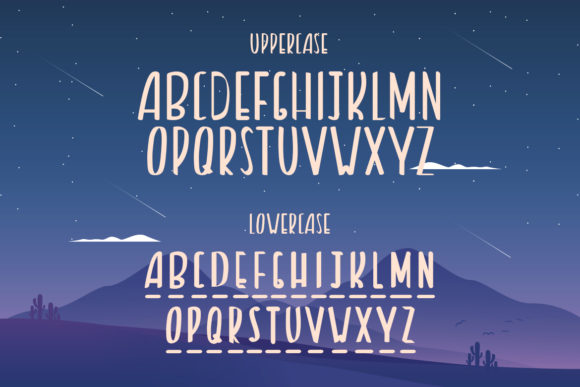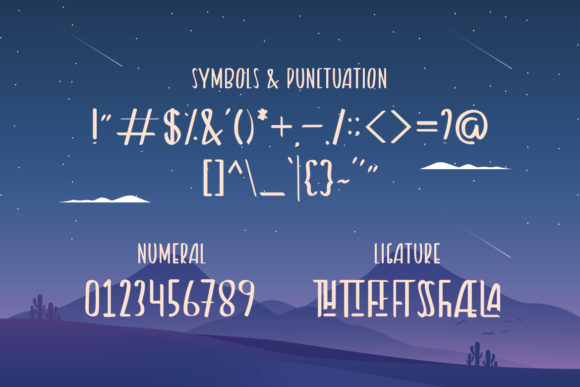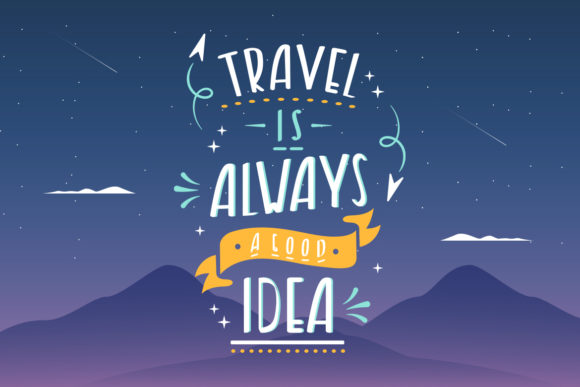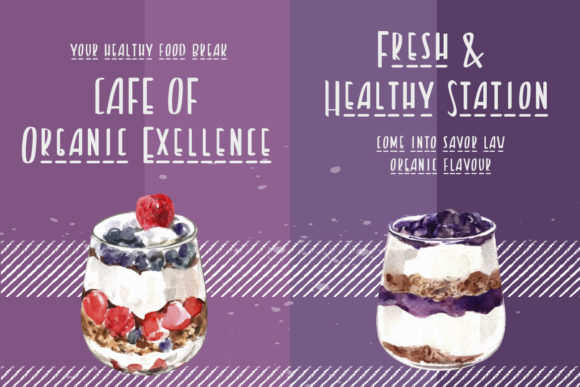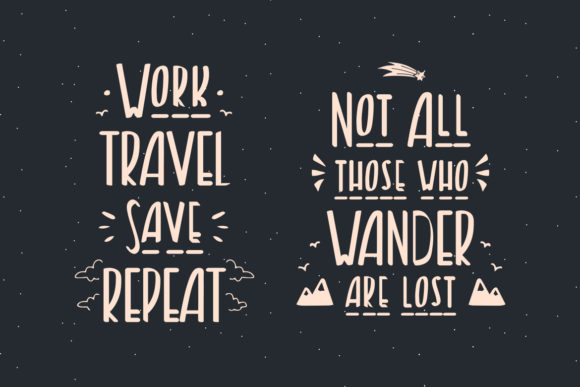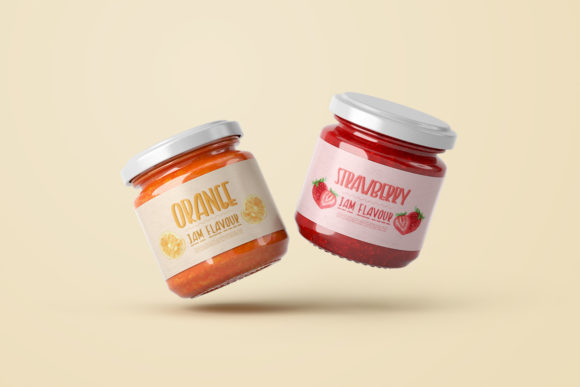
The Perfect Font for Your Next Design Project
| 👤 Author | TypeFactory |
That’s where the Bluffton Font comes in. A simple, yet stylish display font, Bluffton is the perfect addition to any design project. Its tall and trendy design makes it versatile and easy to use in a variety of settings. Whether you’re creating a logo, brochure, or social media graphics, Bluffton Font is a valuable asset for designers looking to add a touch of sophistication to their work.
Bluffton Font Key Features
- Unique Characteristics: Bluffton Font features a unique blend of classic and modern elements, with a focus on clean lines, elegant curves, and a touch of sophistication.
- Character Set: The font includes a comprehensive character set, including uppercase and lowercase letters, numerals, punctuation marks, and special characters, making it suitable for a wide range of applications.
- Font Weight and Style: Bluffton Font is available in various font weights, including light, regular, bold, and italic, allowing users to choose the perfect style to suit their needs.
- Legibility and Readability: The font is designed to be highly legible and readable, even at small font sizes, making it an ideal choice for body text, headings, and titles.
Bluffton Font Review
Bluffton Font is an elegant, modern sans-serif font that exudes sophistication and refinement. Here are some of its strengths: ✨
- Legibility**: The font is highly legible, making it suitable for both body text and headlines.
- Flexibility**: Bluffton Font comes in a range of weights, from light to bold, offering flexibility in design.
- Style**: The font’s clean lines and geometric shapes give it a unique, modern feel.
- Limited Expressiveness**: Bluffton Font may not be the best choice for projects that require a lot of expressiveness or emotional depth.
- May Not Work for Small Text**: Due to its simplicity, the font may not be ideal for small text sizes.
In general, I think Bluffton Font is a solid choice for designers who need a clean, modern sans-serif font. While it may not be the most expressive font out there, it’s a great option for projects that require sophistication and refinement.
Practical Application Guide for Bluffton Font
Bluffton Font works well for headings, titles, and short paragraphs in Canva designs.
Bluffton Font is particularly suitable for creating custom graphics and illustrations.
Bluffton Font works well for presentations and documents requiring a clean, modern look.
Getting the Most Out of Bluffton Font
Bluffton Font is versatile and can be used in various design contexts. To get the most out of it, try:
- Combining it with other fonts for a unique look.
- Using it for headings and titles to create visual hierarchy.
- Experimenting with different font sizes and colors to achieve the desired effect.
By following these tips, you can effectively use Bluffton Font to create visually appealing designs.
Alternatives to Bluffton Font
Playfair Display is an elegant, high-end serif font that excels at creating a luxurious feel. It’s perfect for use in luxury branding, high-end advertising, and other applications where sophistication is key. Compared to Bluffton Font, Playfair Display is more ornate and luxurious, with a greater emphasis on craftsmanship and attention to detail.
Pacifico is a beautiful, elegant script font that’s perfect for use in creative, high-end branding and design projects. It’s great for use in invitations, menus, and other applications where a touch of sophistication is needed. Compared to Bluffton Font, Pacifico is more fluid and expressive, with a greater emphasis on hand-written feel.